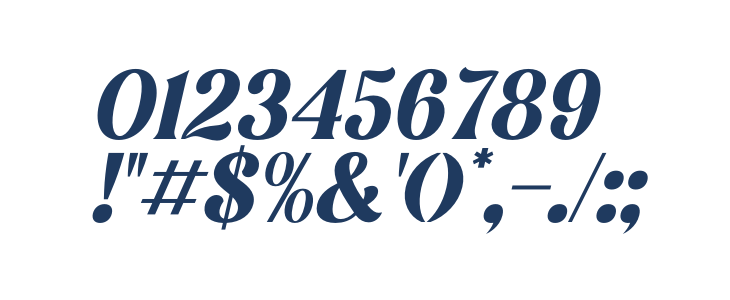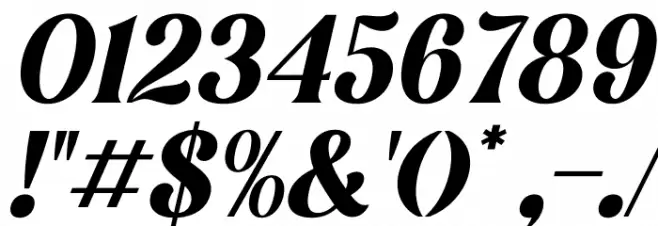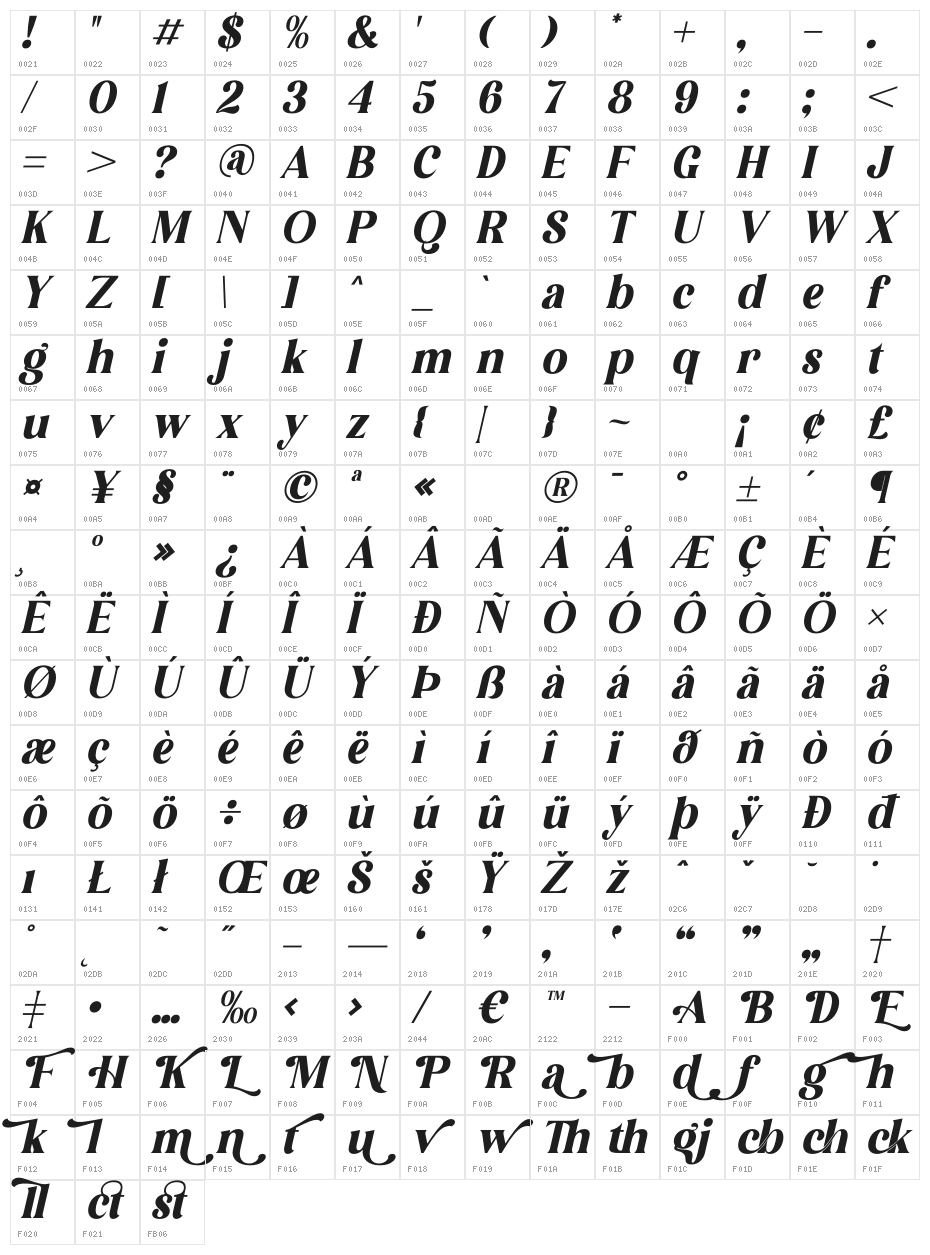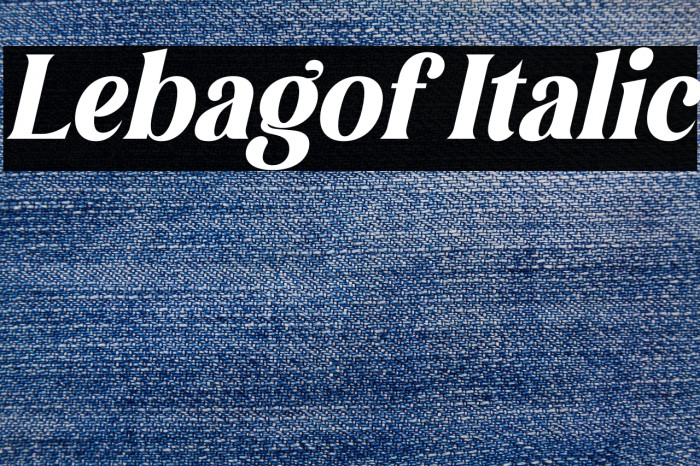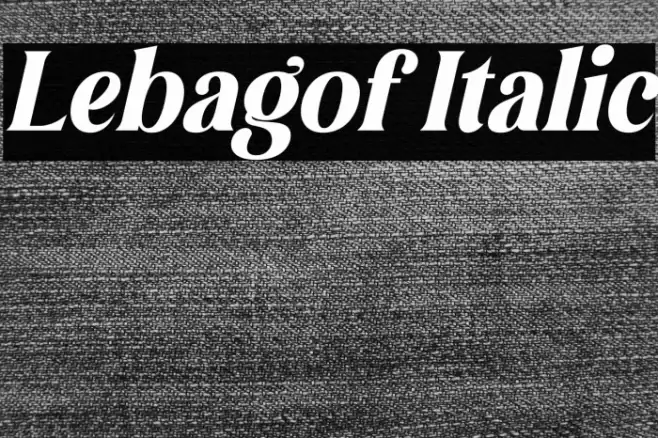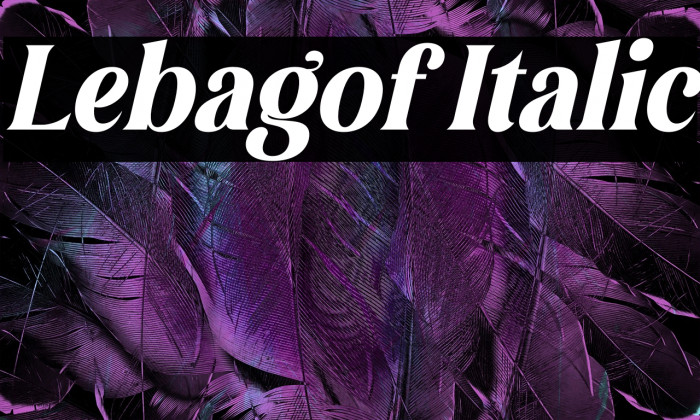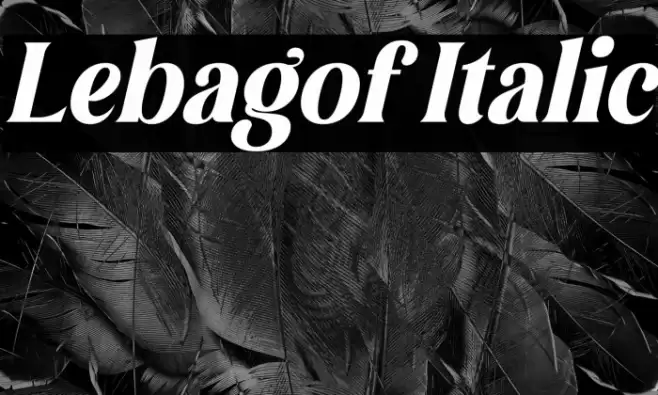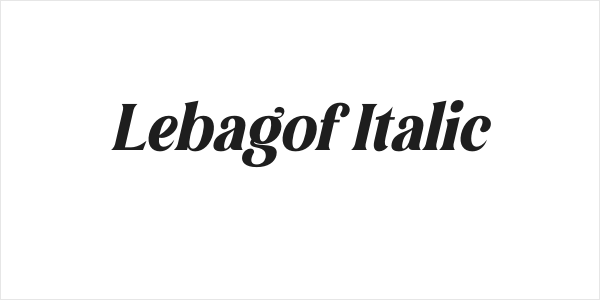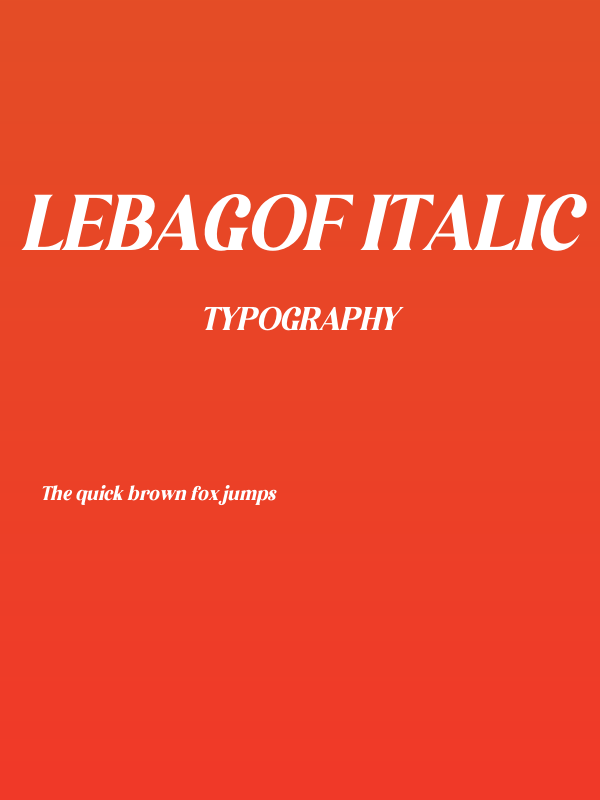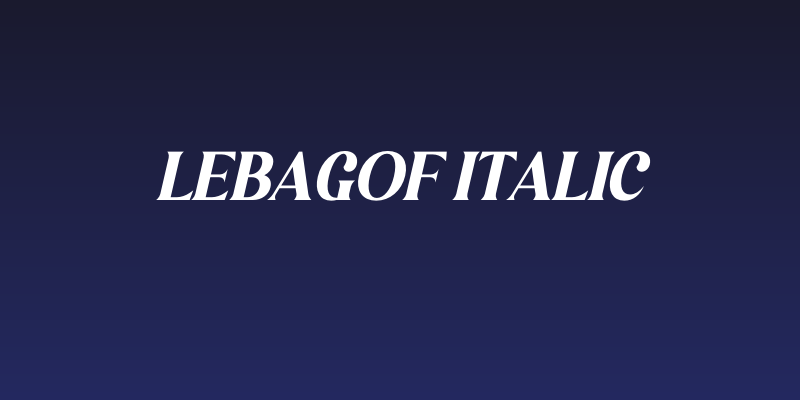
Lebagof Italic Font
Lebagof Italic Description
This font features a bold and dynamic italic style, characterized by its strong diagonal emphasis and pronounced serifs. The letters have a classic yet modern appeal, with a slight slant that adds a sense of movement and elegance. The uppercase letters are tall and commanding, while the lowercase letters maintain a consistent flow, making it versatile for various design applications. The numerals are robust and clear, ensuring readability. Special characters are well-integrated, maintaining the overall aesthetic of the font.
| Proposed Projects | Ideal for branding, editorial design, and advertising where a bold statement is needed. |